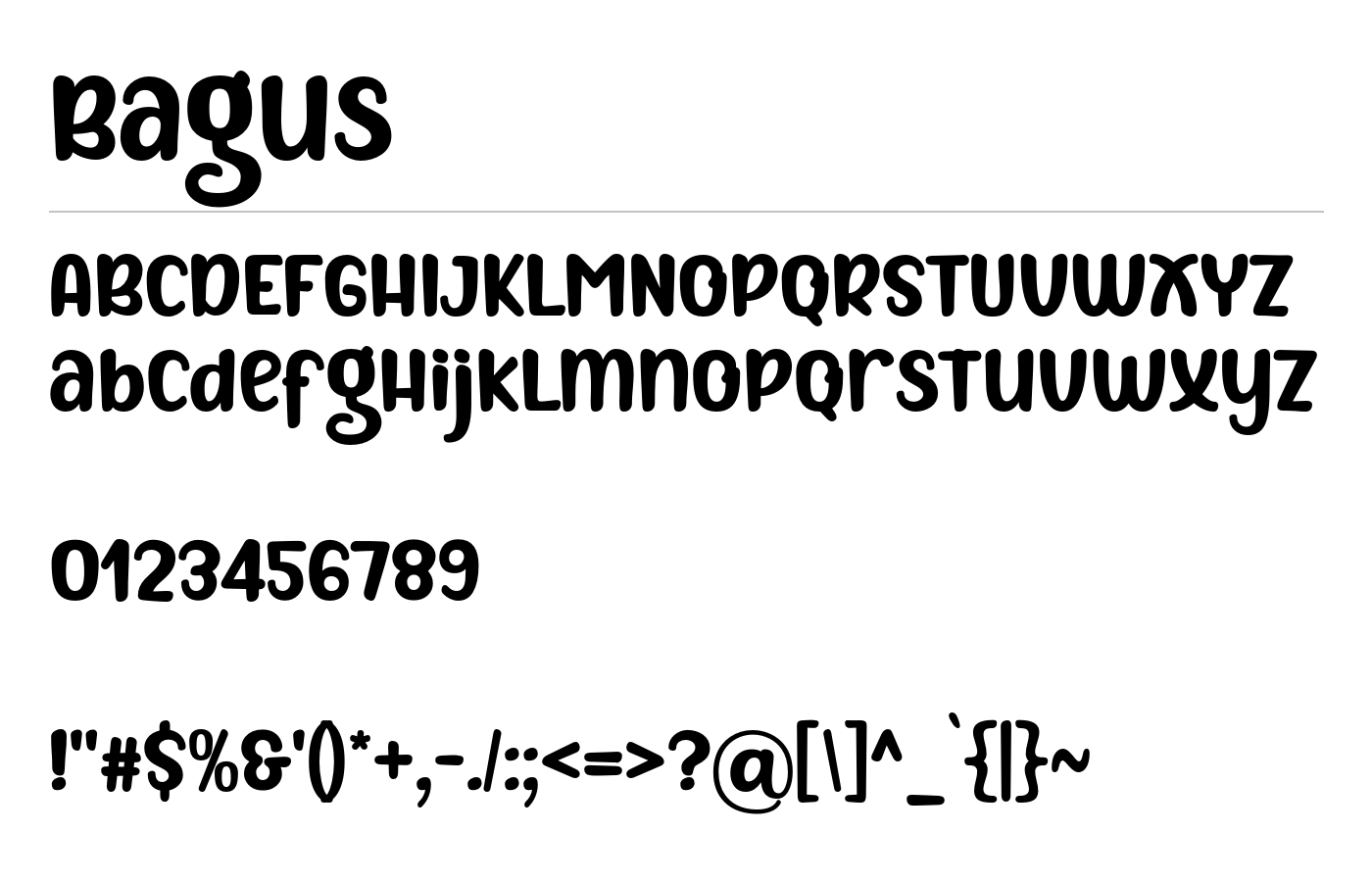
Bagus Font is a friendly and rounded sans serif typeface with a casual, playful character. It features bold and slightly condensed letterforms with a consistent stroke weight, high x-height, and unique quirky details that give it a hand-crafted, approachable feel. Ideal for children’s books, informal branding, and fun headlines, Bagus adds warmth and personality wherever a lively, welcoming tone is desired.
Bagus Font
| Designer | Jasman Nazara; Situjuh Nazara |